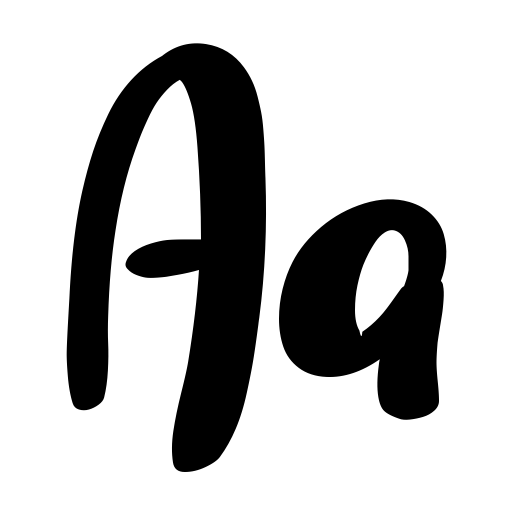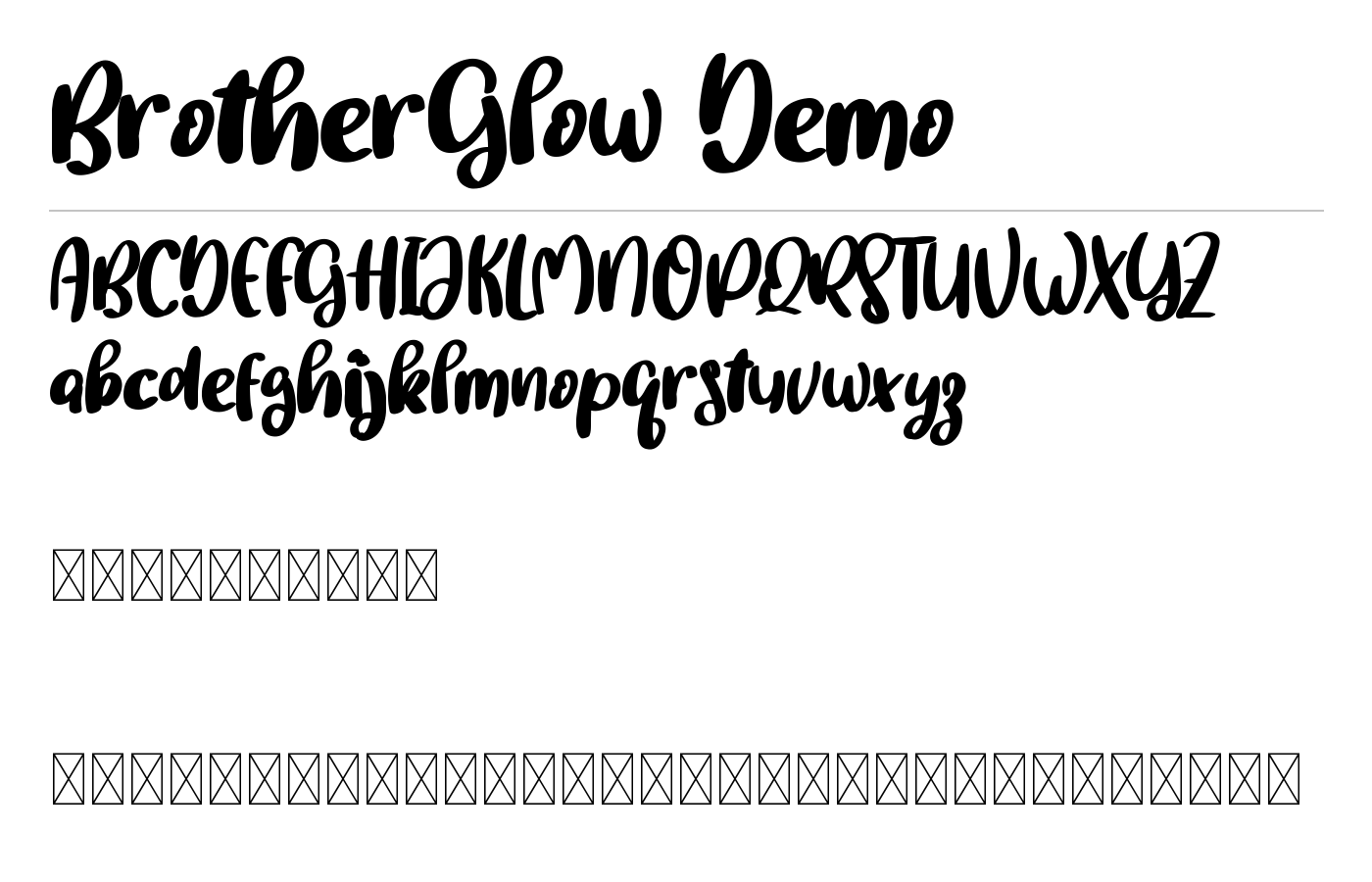
BrotherGlow Demo is a lively and bold script font with a hand-drawn feel, featuring thick strokes and playful letterforms with a medium x-height for good readability. Its rounded, brush-like style and casual elegance make it perfect for branding, invitations, and creative headlines that want to convey warmth and personality. This font works especially well where a friendly, approachable look is desired without sacrificing impact or style.
BrotherGlow Demo Font
About BrotherGlow Demo Font
| Font family | BrotherGlow Demo Font |
| Designer | Fajar Saepul Rohman & Suci Anita |